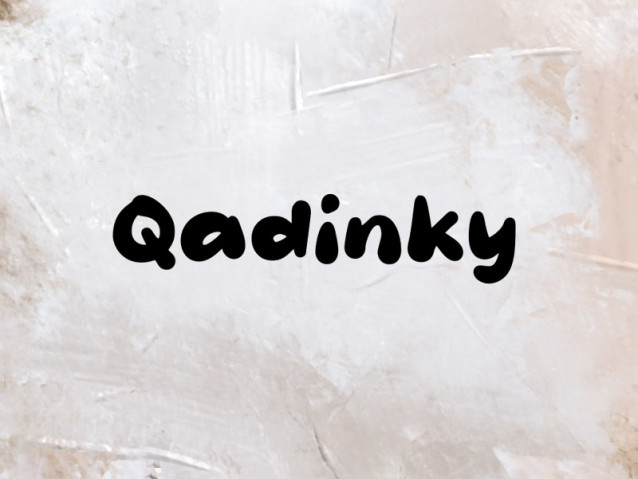
Qadinky Font
Qadinky Font is a simple and modern display font suitable for quotes, logos, headings, titles, and many more. Use it on any of your creative projects, and your designs will become outstanding!